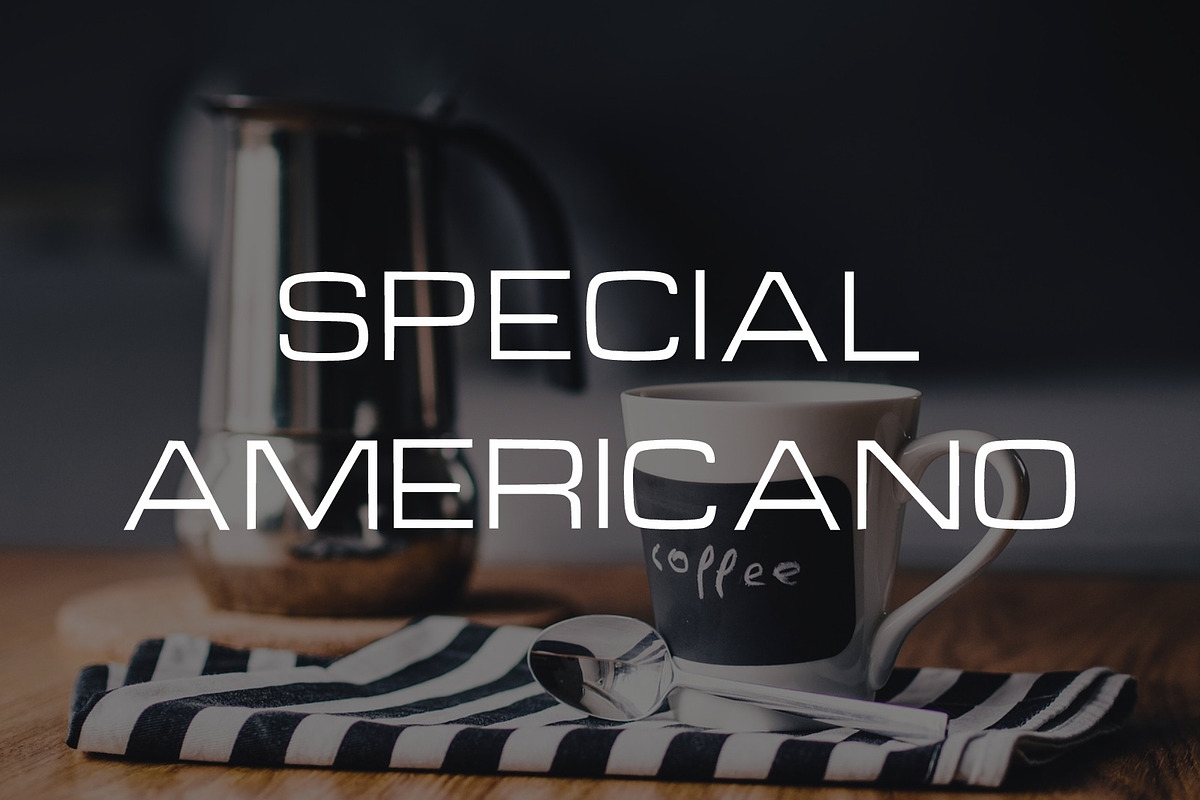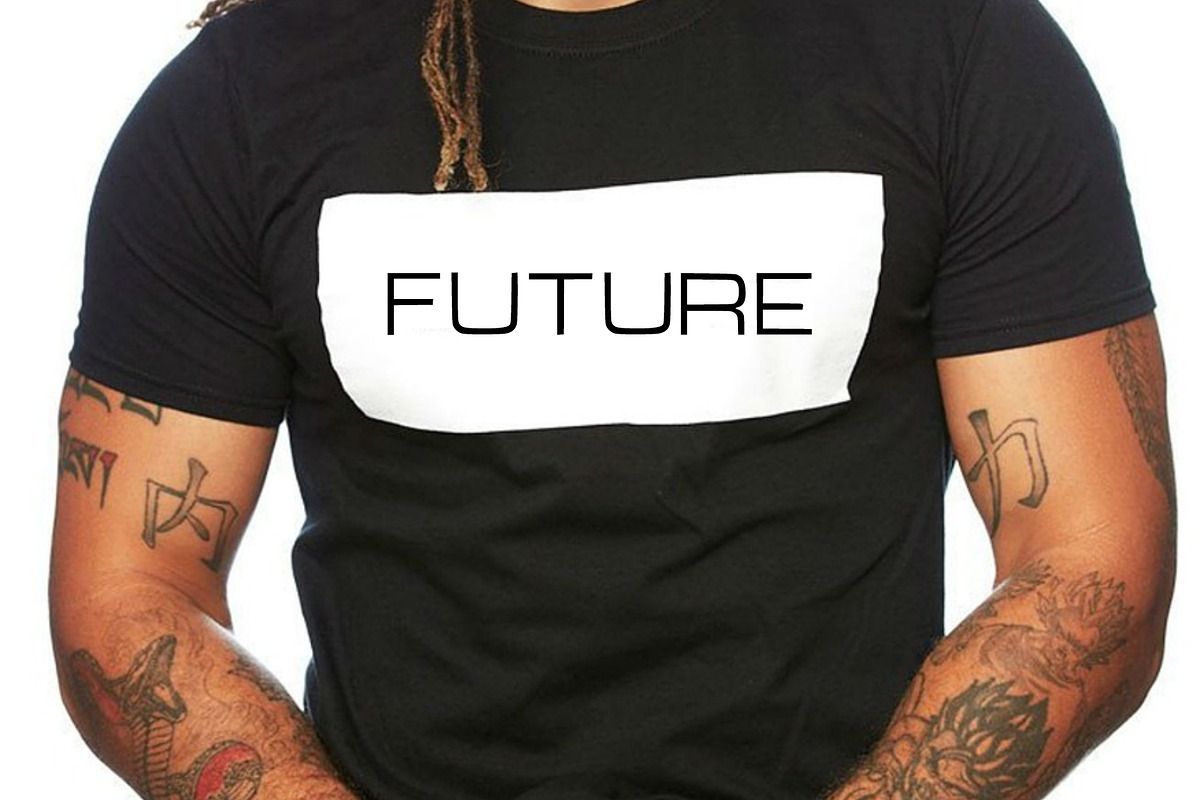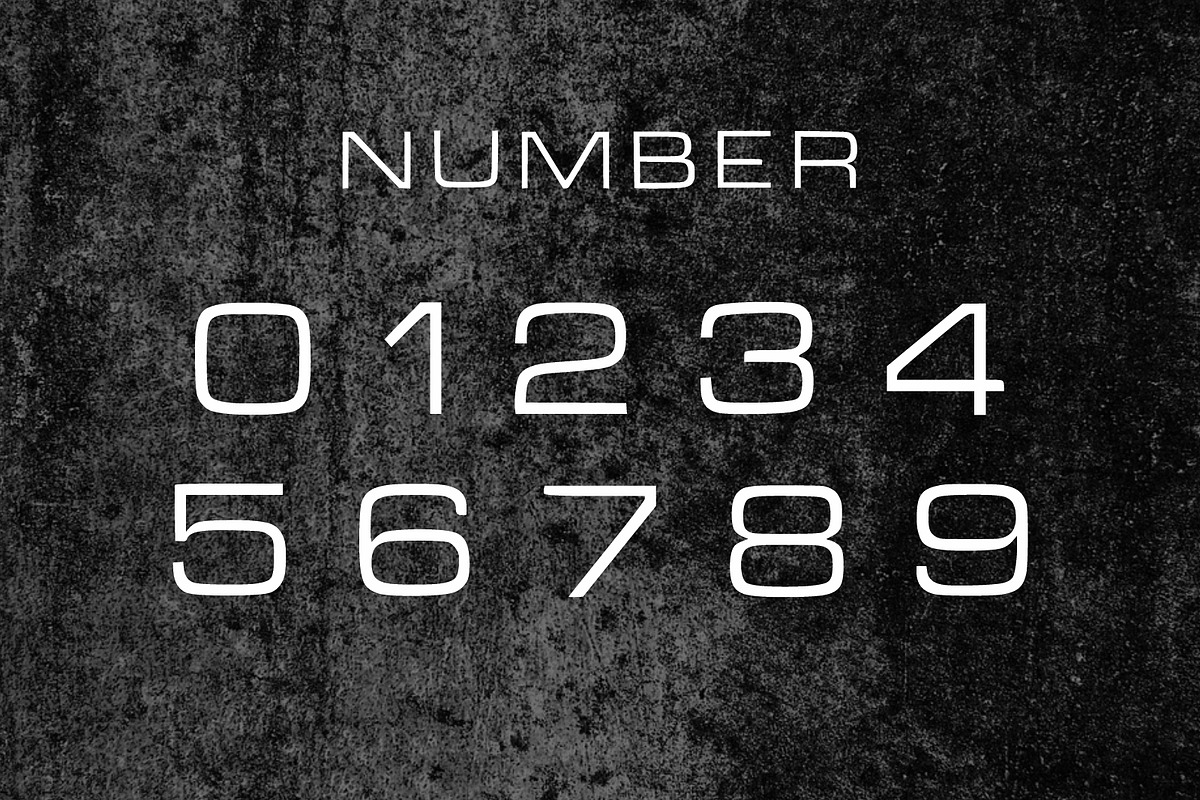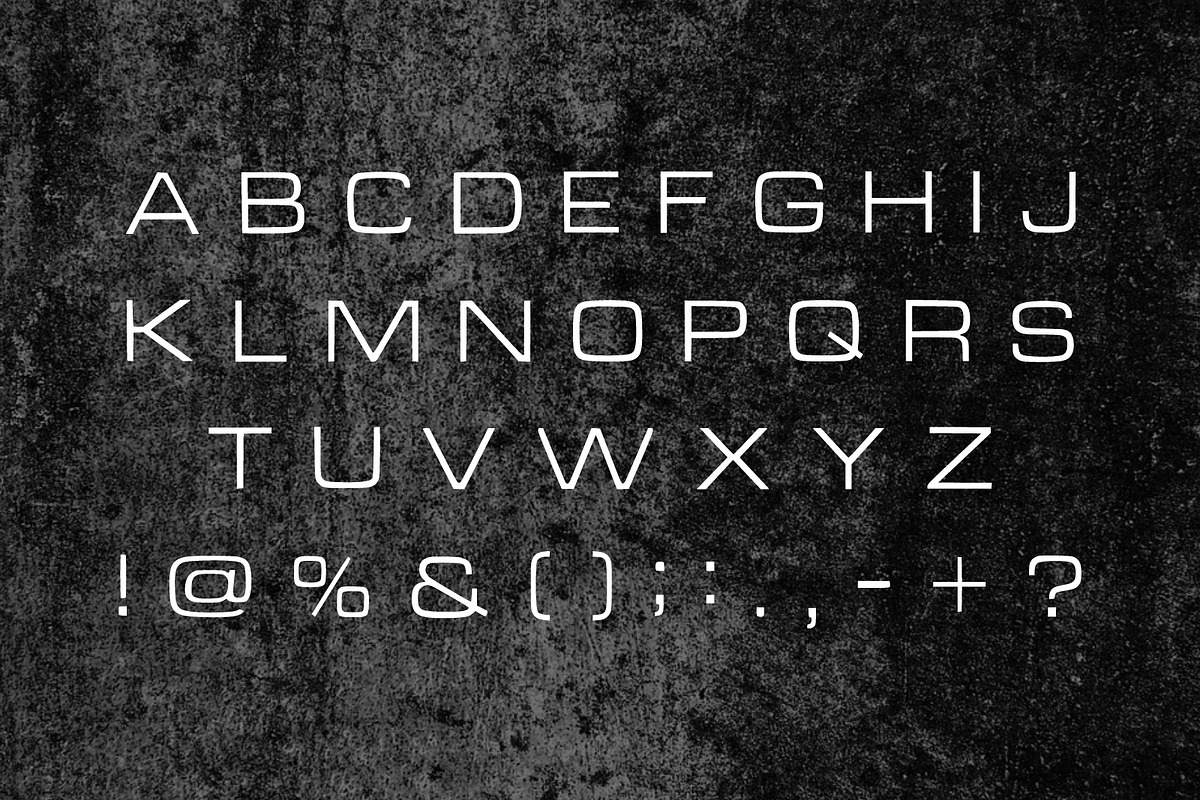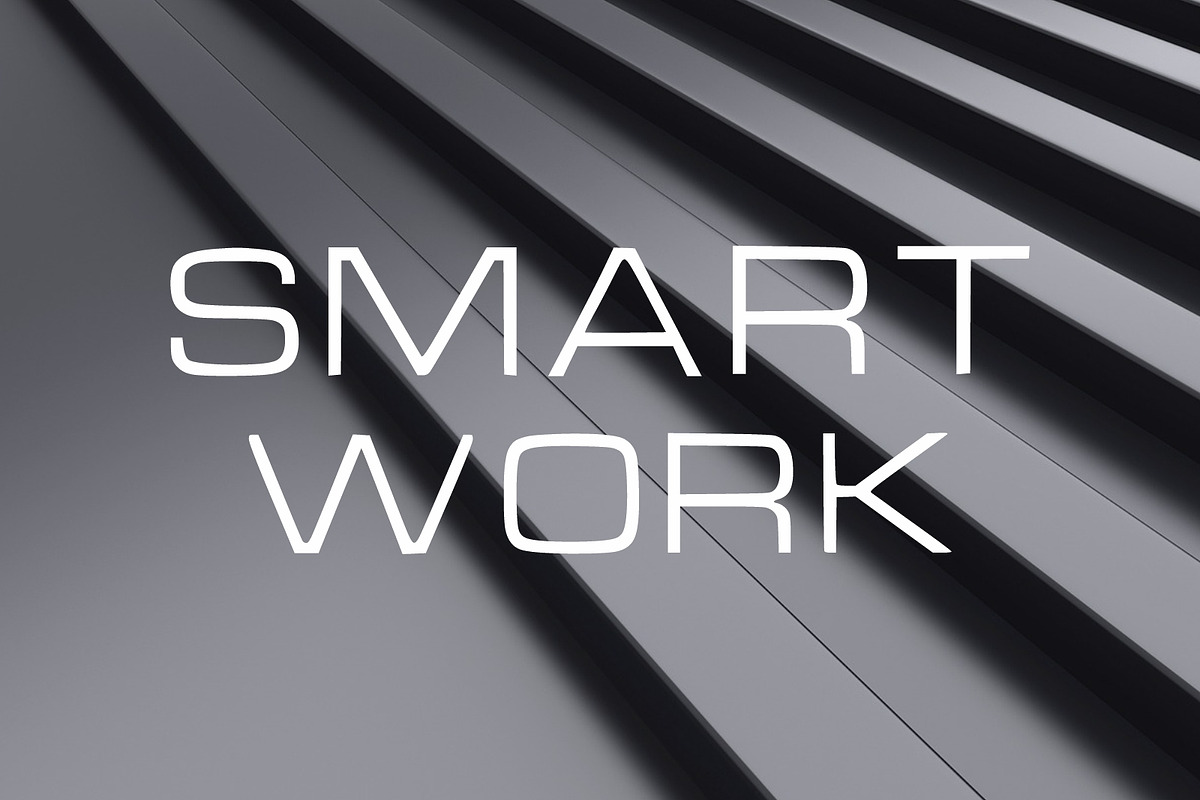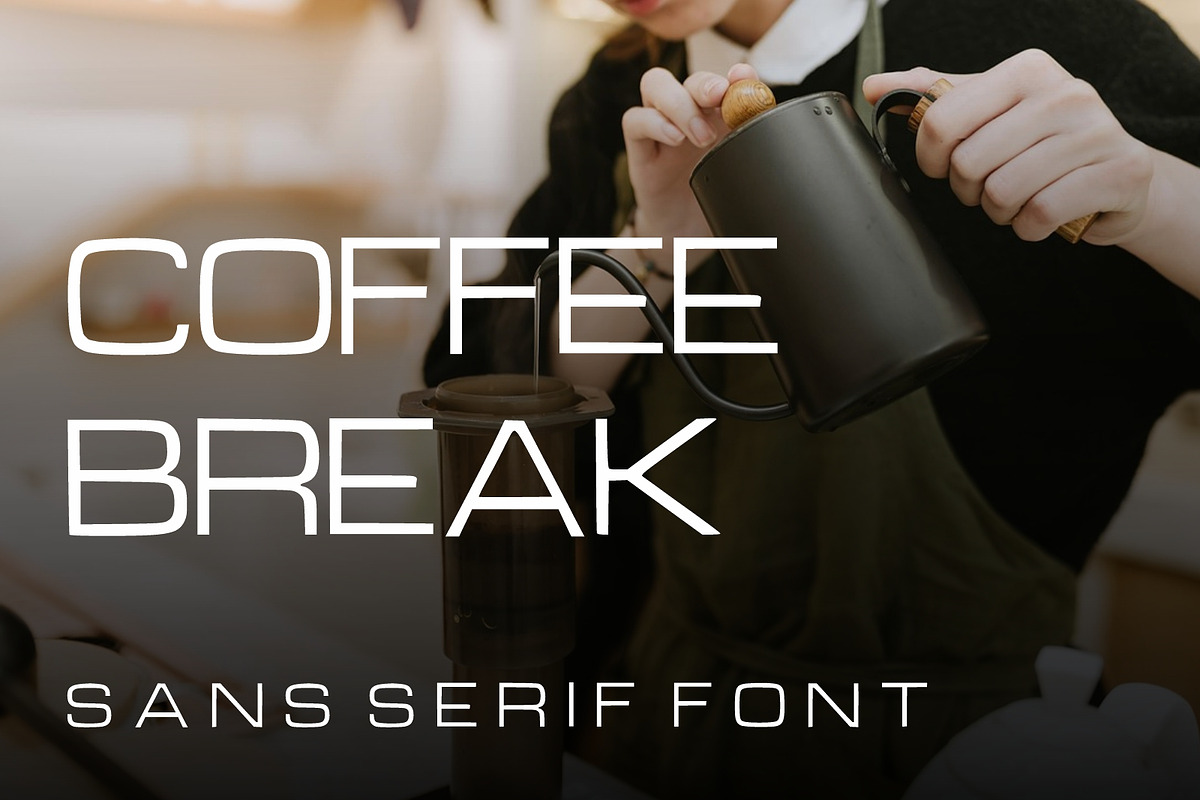
Coffee Break
Coffee Break is an uppercase, easy-to-read sans serif font that conveys impeccable friendliness. Whether you’re using it for crafts, digital design, presentations, or greeting cards, this font has the potential to become your favorite go-to font, no matter the occasion!